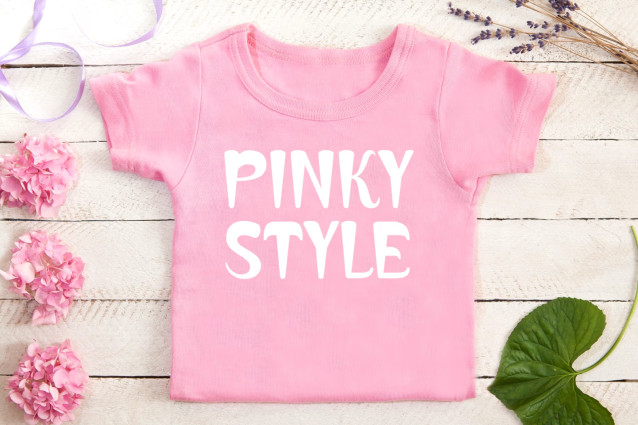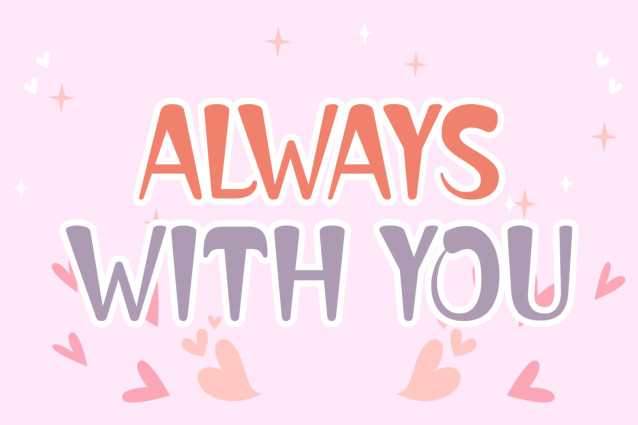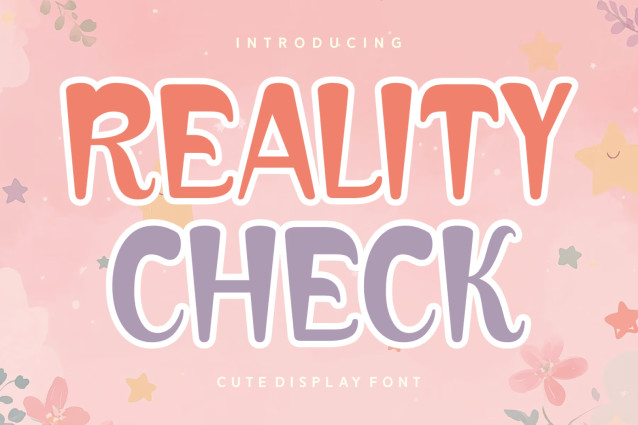
Reality Check Font
Introducing “Reality Check”, an artistic synthesis of style and design. This display font serves up a whimsical blend of adorableness and simplicity, each character lovingly hand-drawn to capture attention. Perfect for headlines and social media, “Reality Check” enlivens text with its craft-like charm and photographic precision.
Moreover, “Reality Check” guarantees multilingual support, ensuring its universal appeal. Dive into the world of “Reality Check”, where every letter is a nod to creative expression and innovative design.